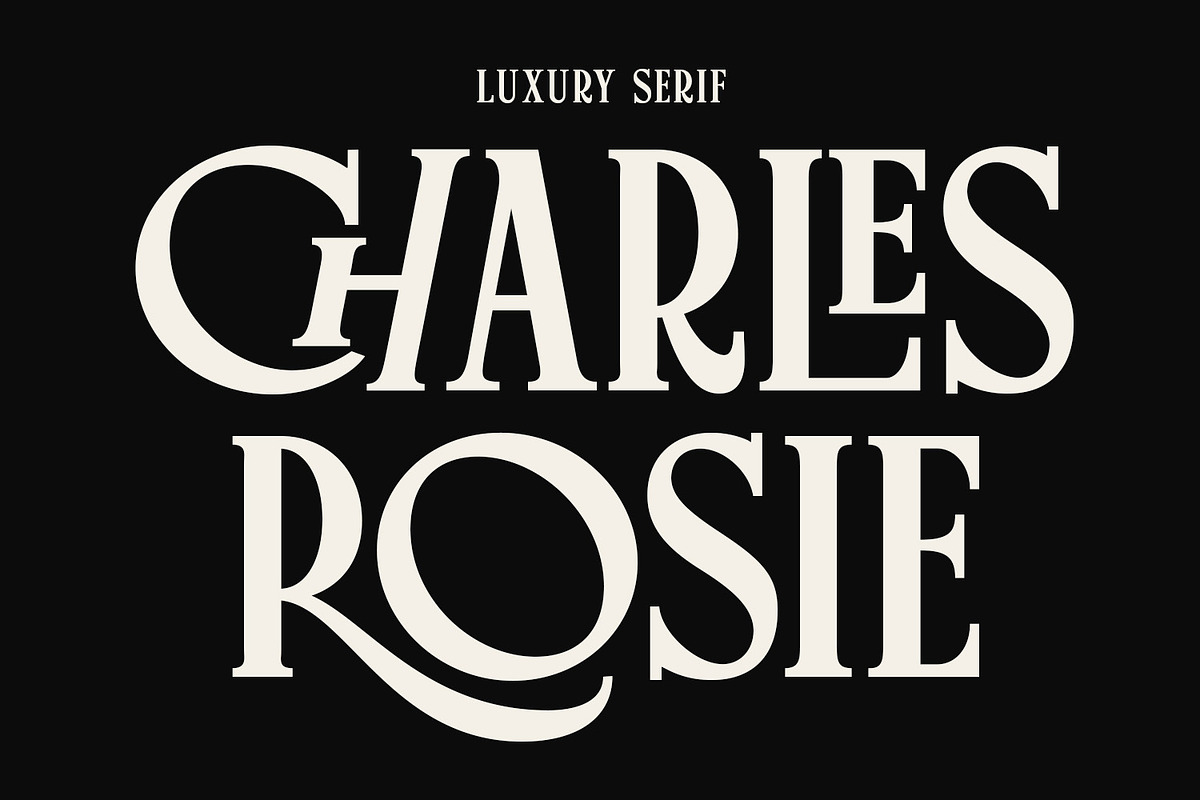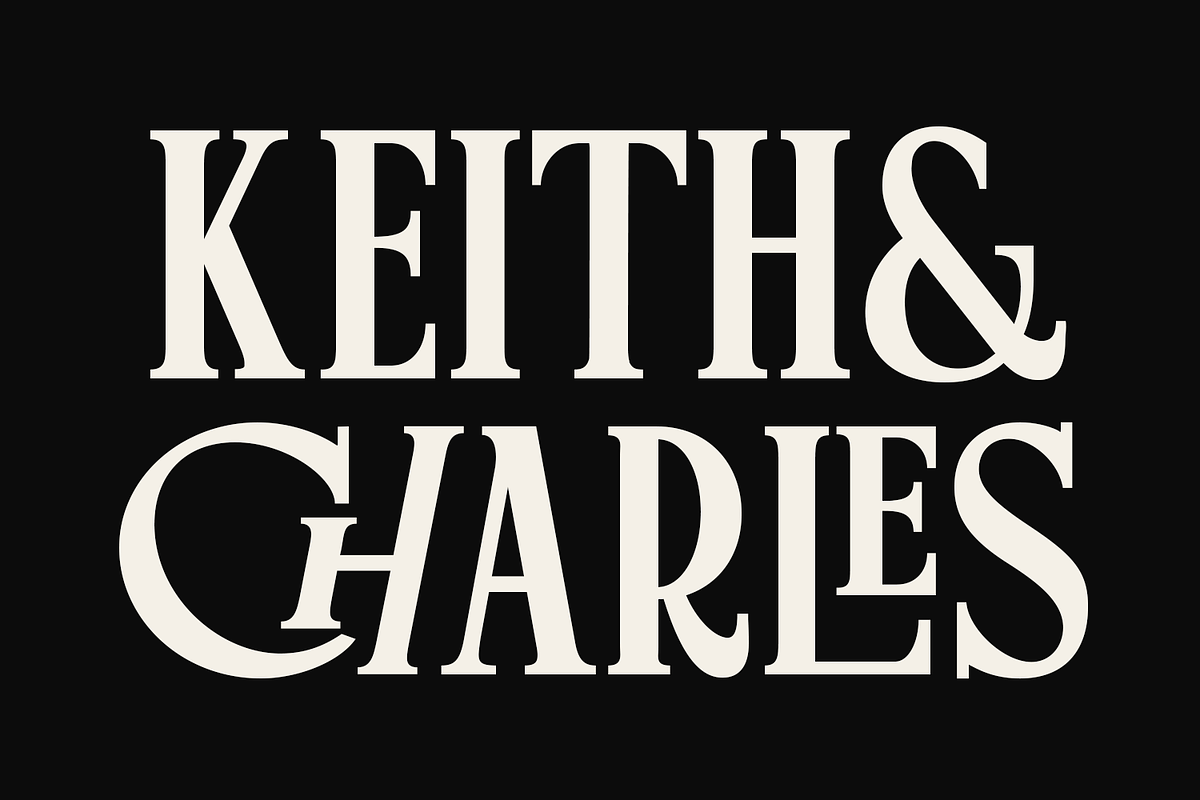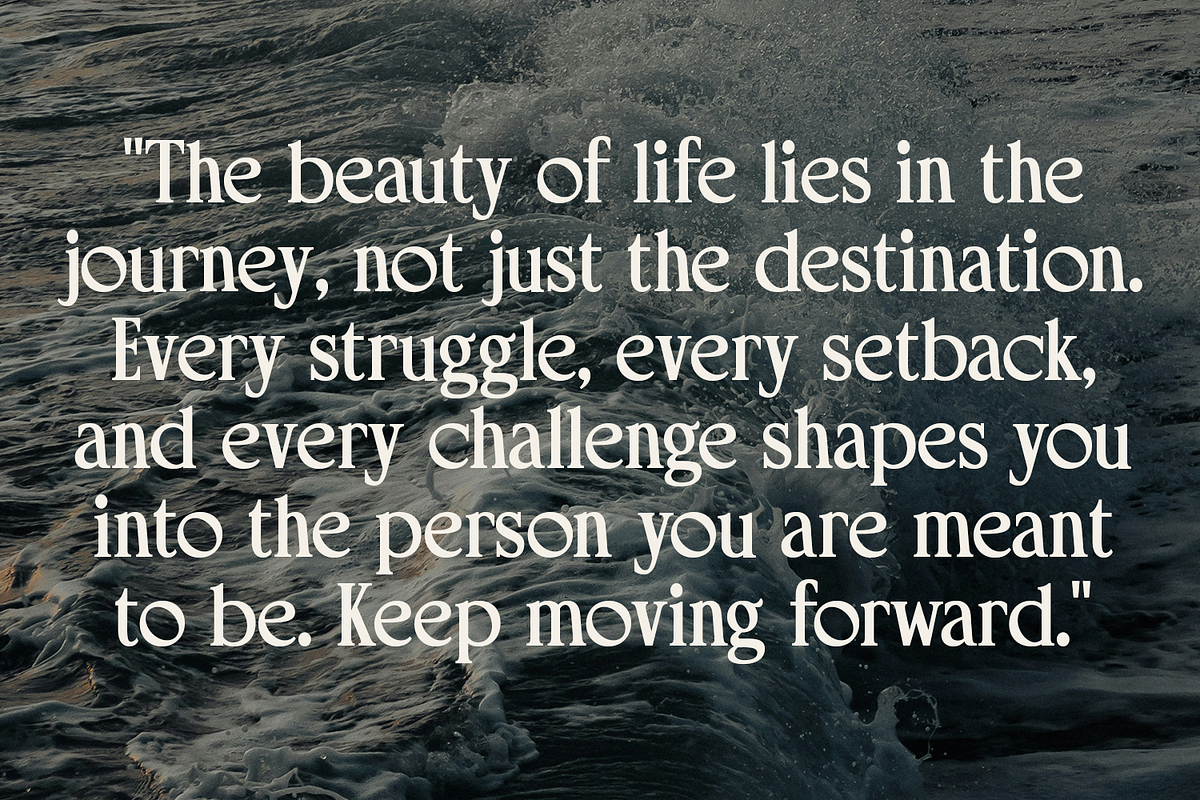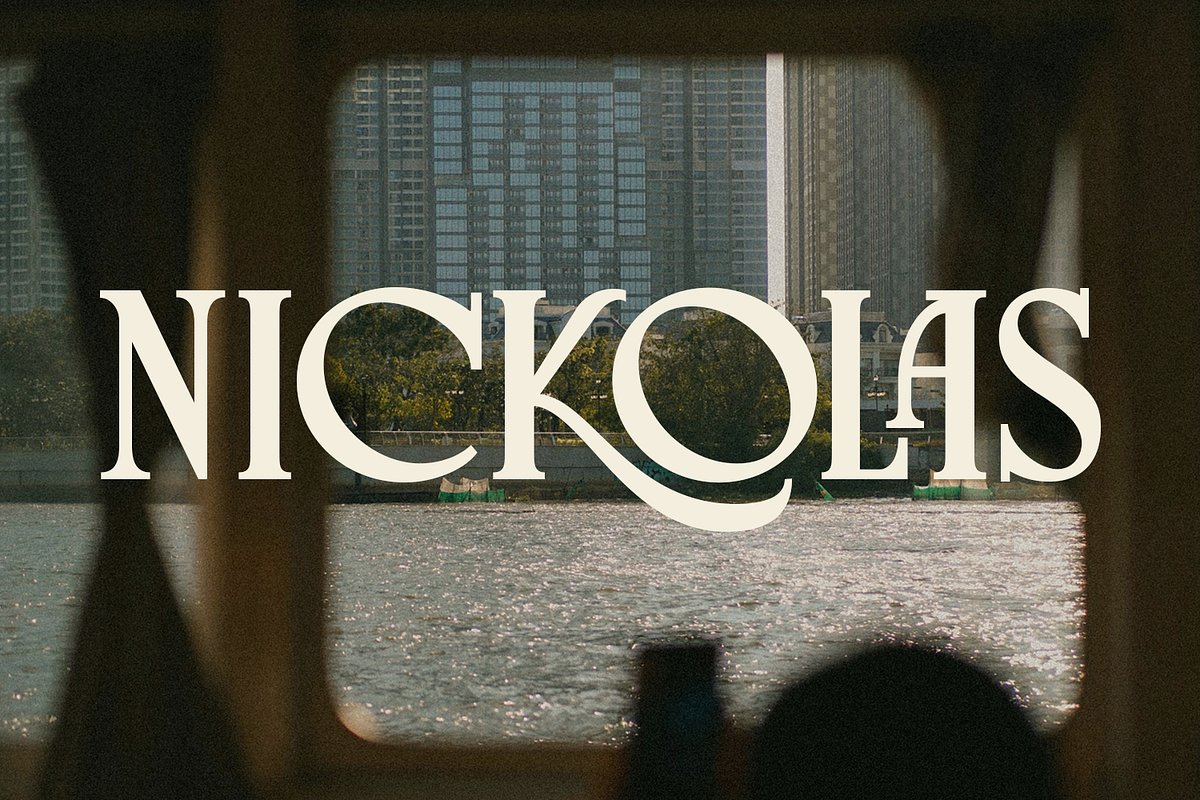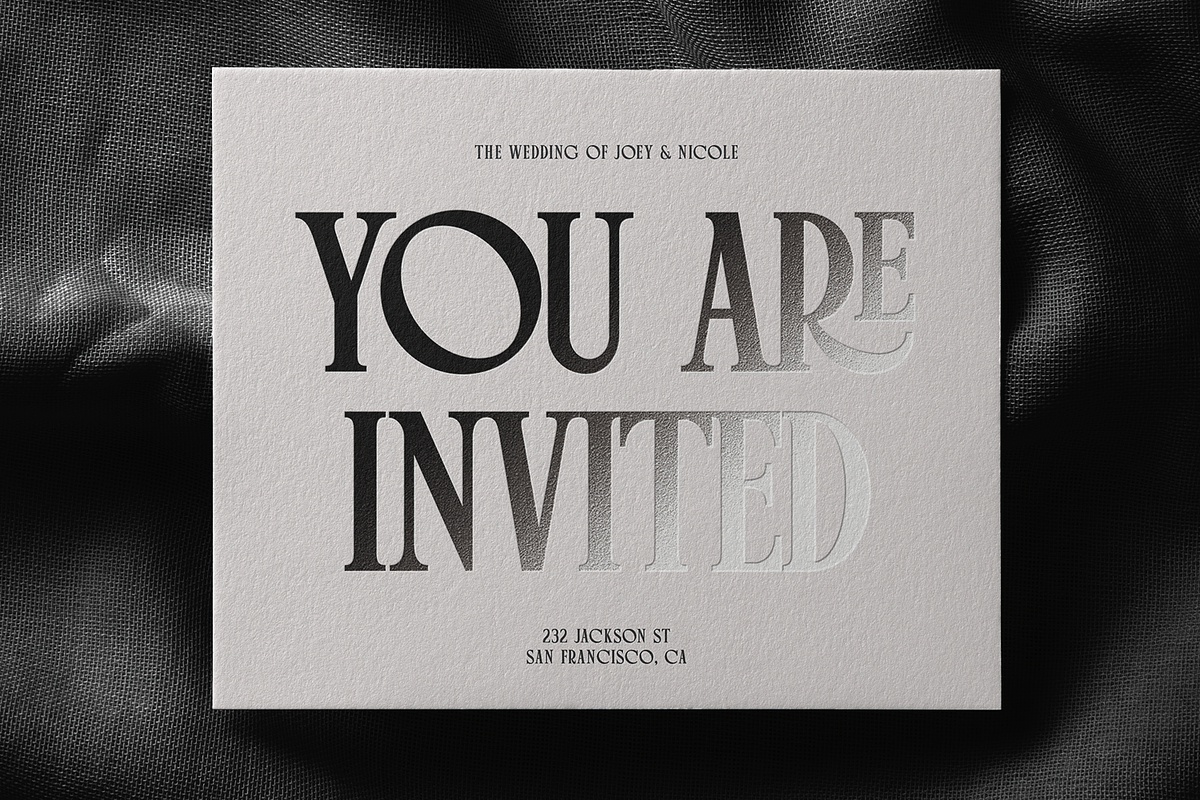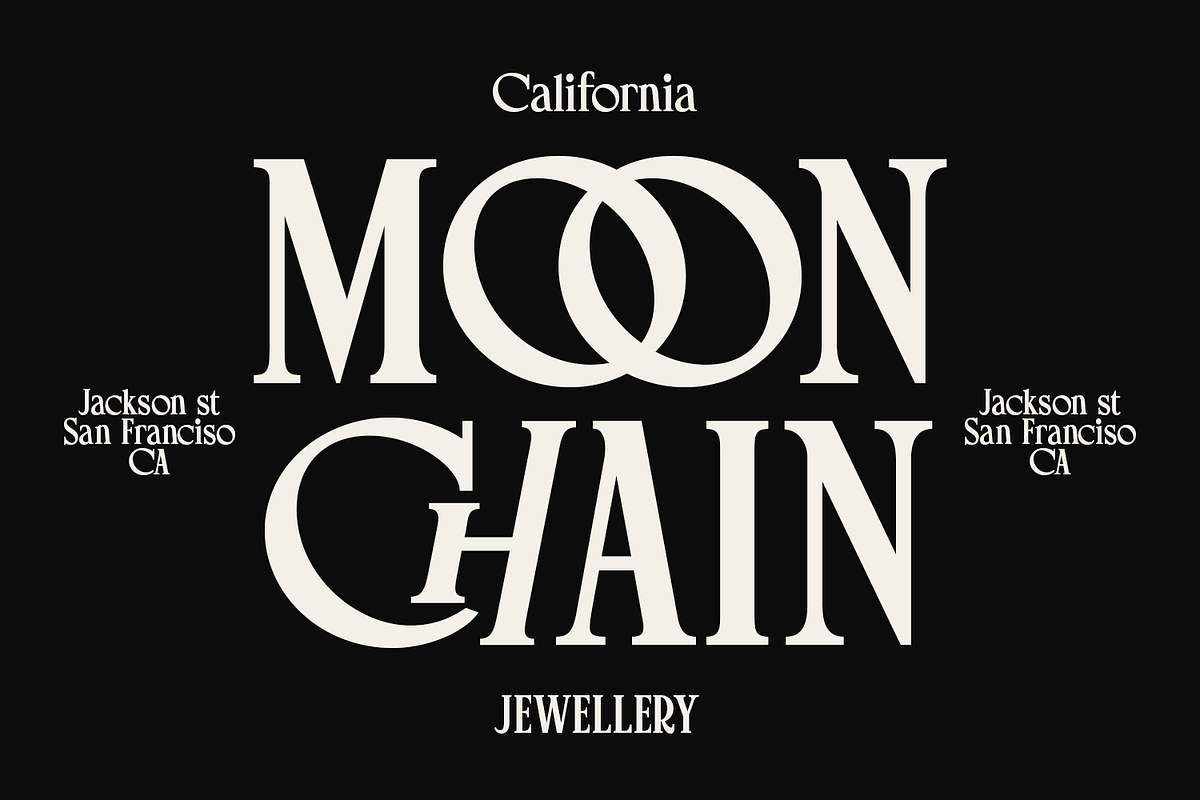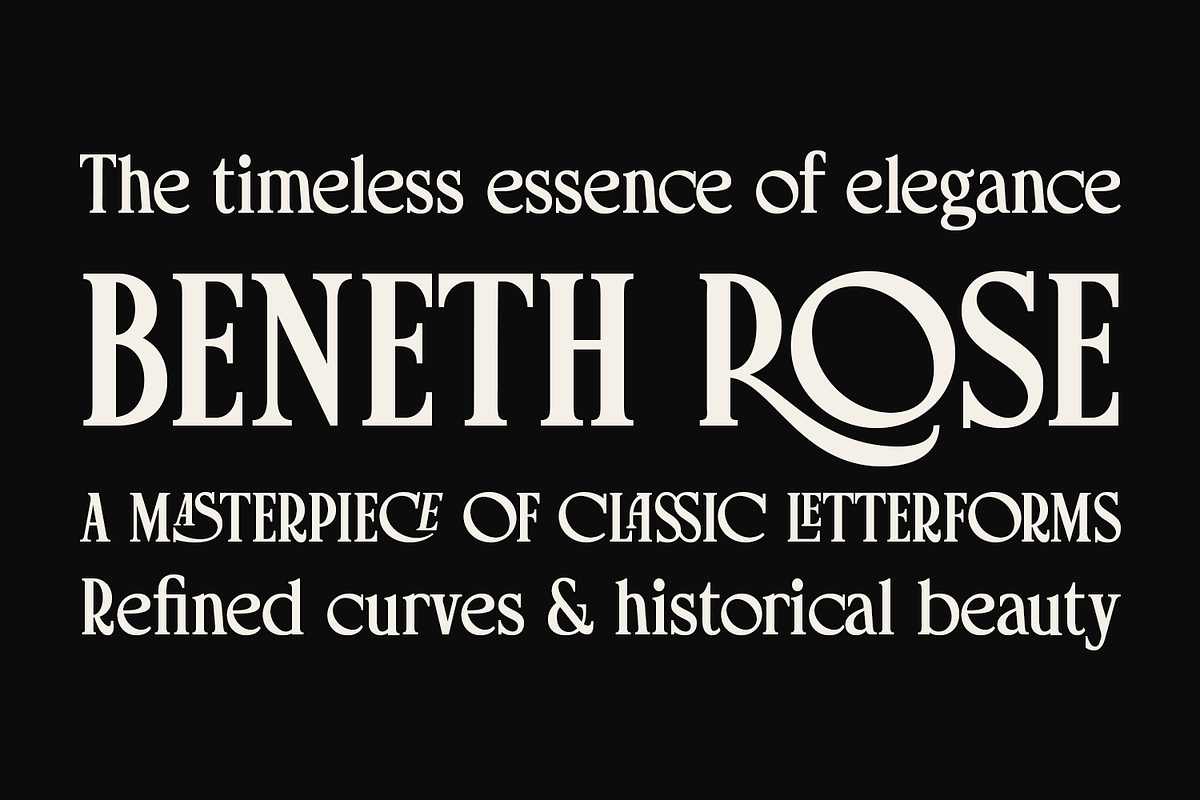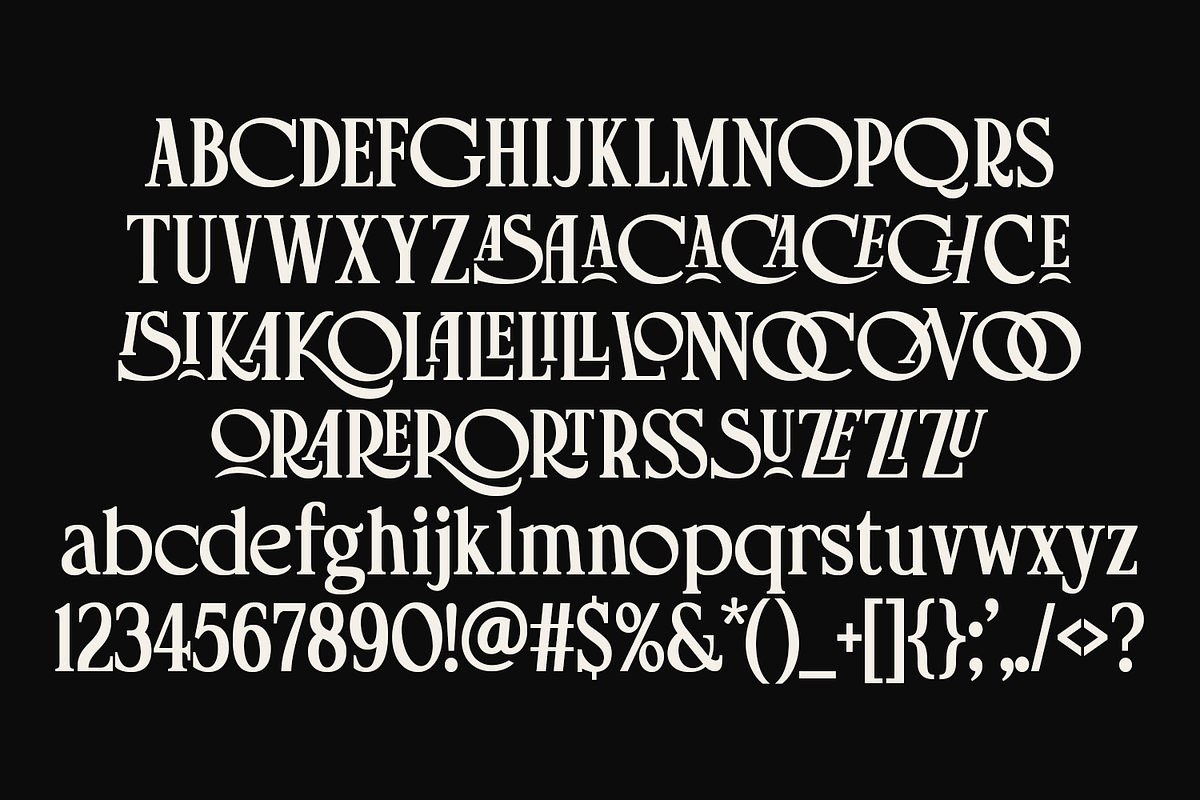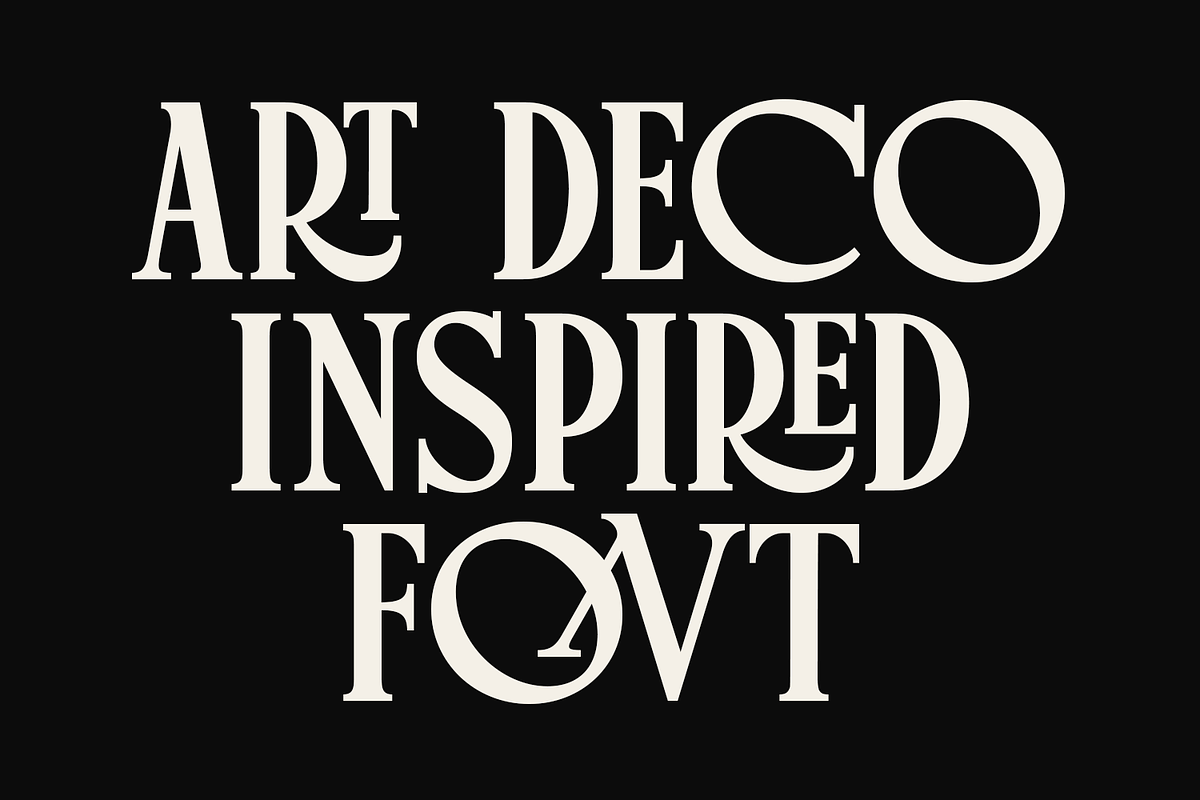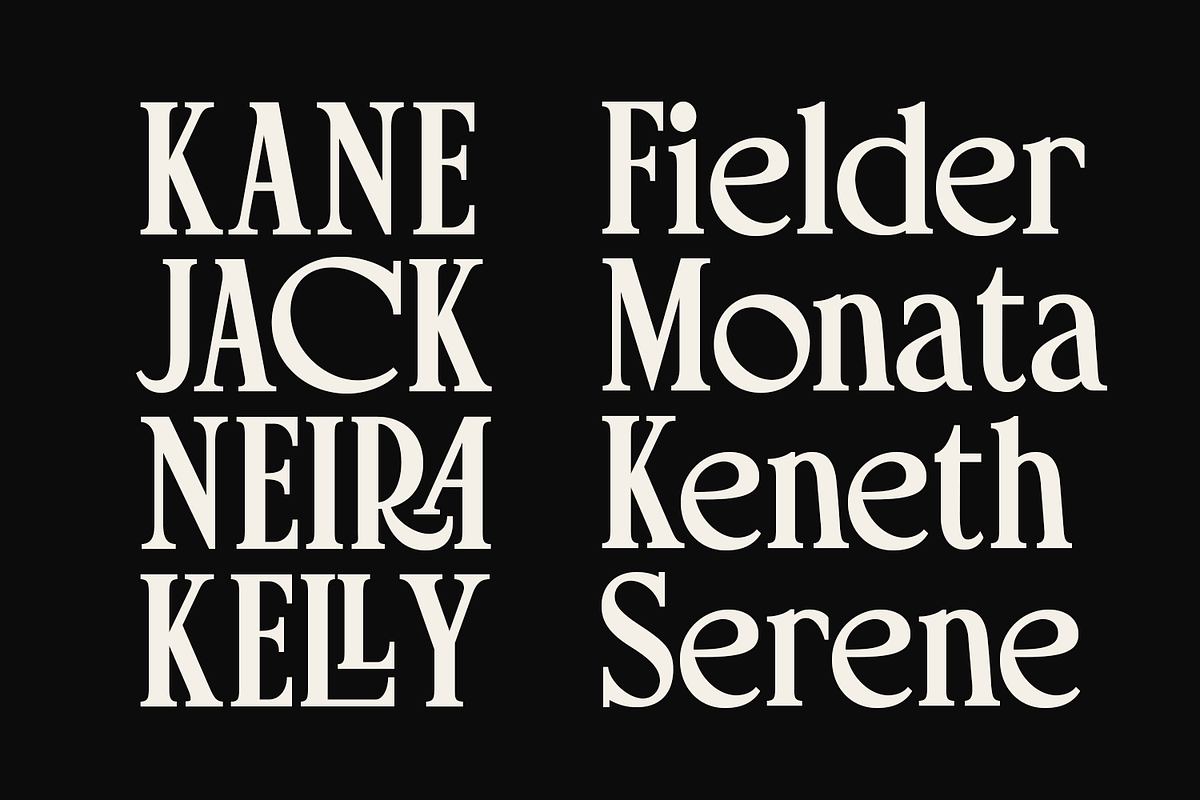
Charles Rosie - Luxury Serif
Introducing Charles Rosie, a high-end luxury serif font that exudes sophistication and timeless charm. Designed with elegant curves, refined details, and striking contrast, this typeface is perfect for branding, editorial designs, invitations, high-end packaging, and logo design.
With a vintage-inspired aesthetic and a modern twist, Charles Rosie balances bold statement letters with delicate serifs, making it an excellent choice for designers looking to create luxurious, stylish, and attention-grabbing typography. Whether you're crafting wedding invitations, fashion magazines, or boutique branding, this font will add a touch of class and uniqueness to your projects.